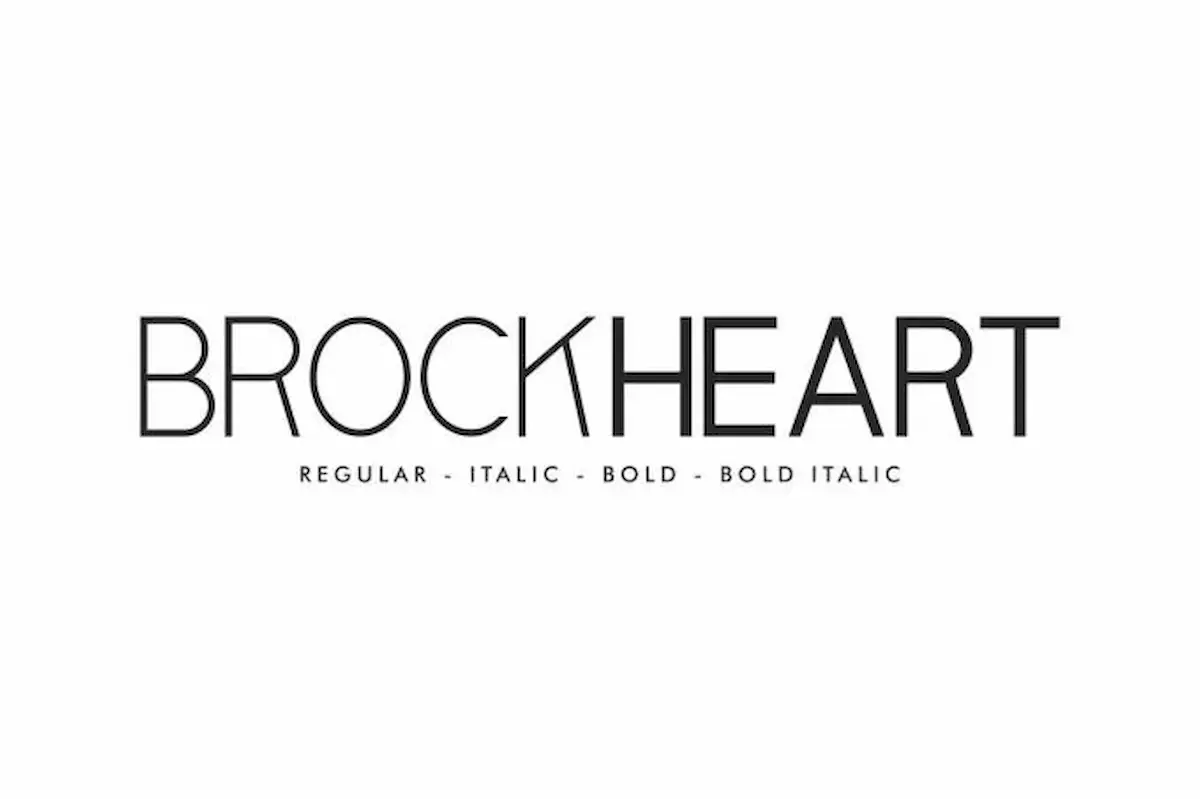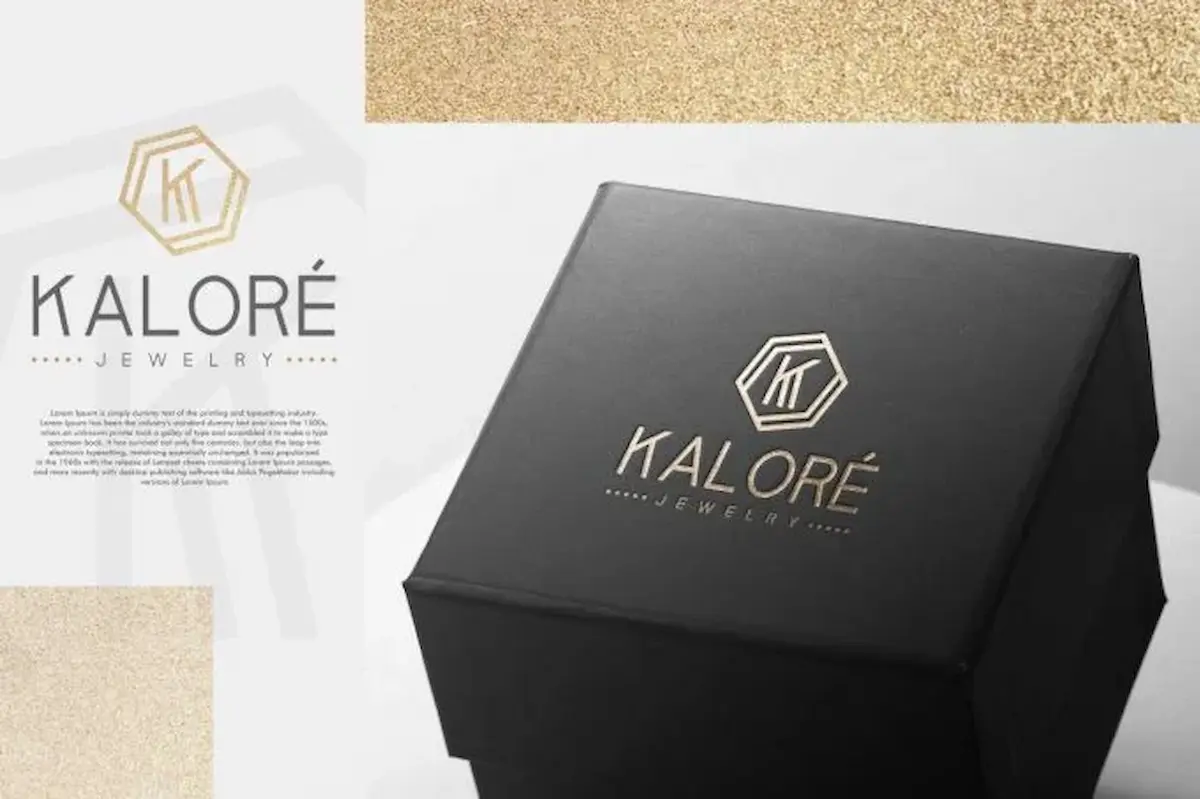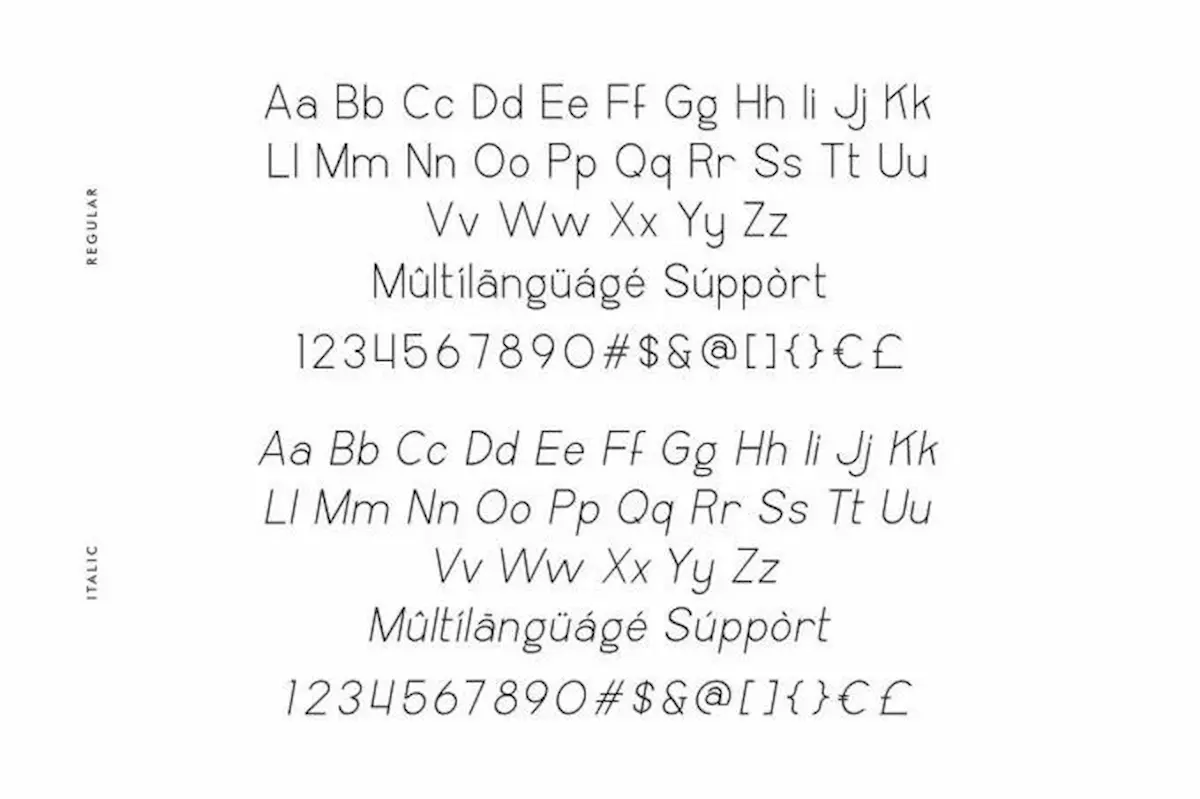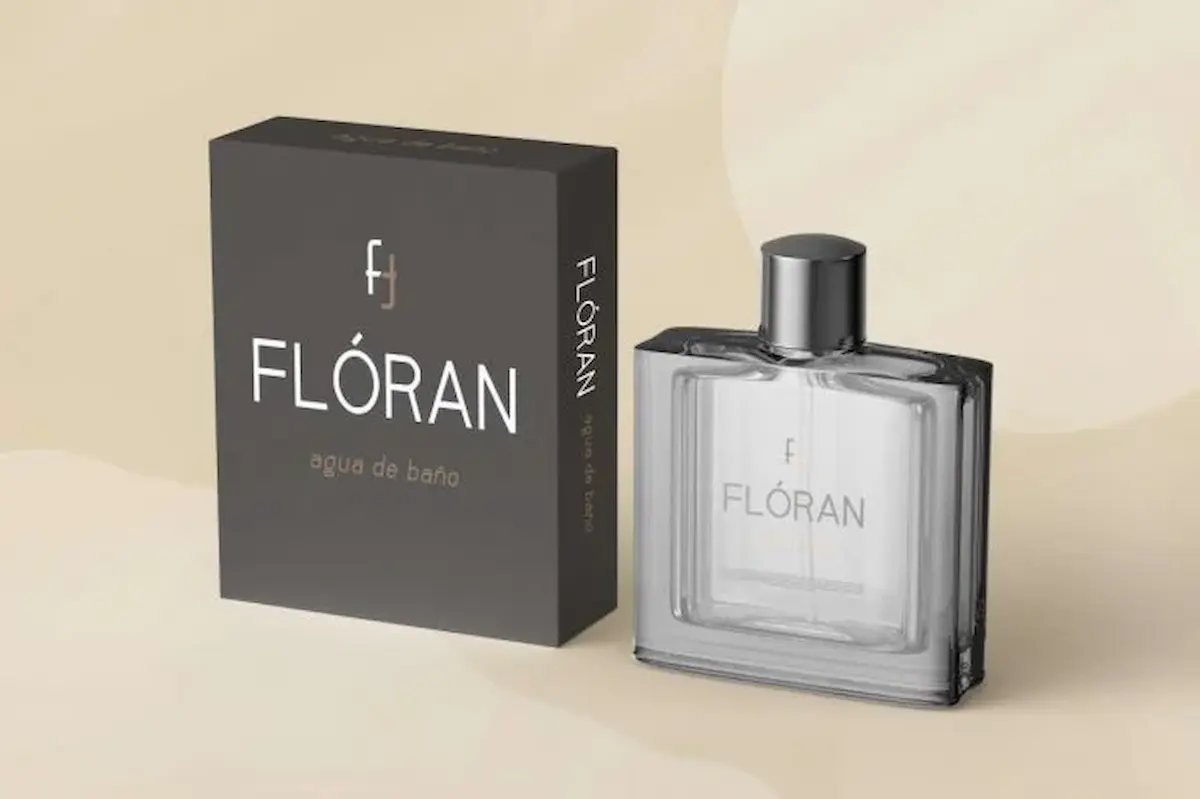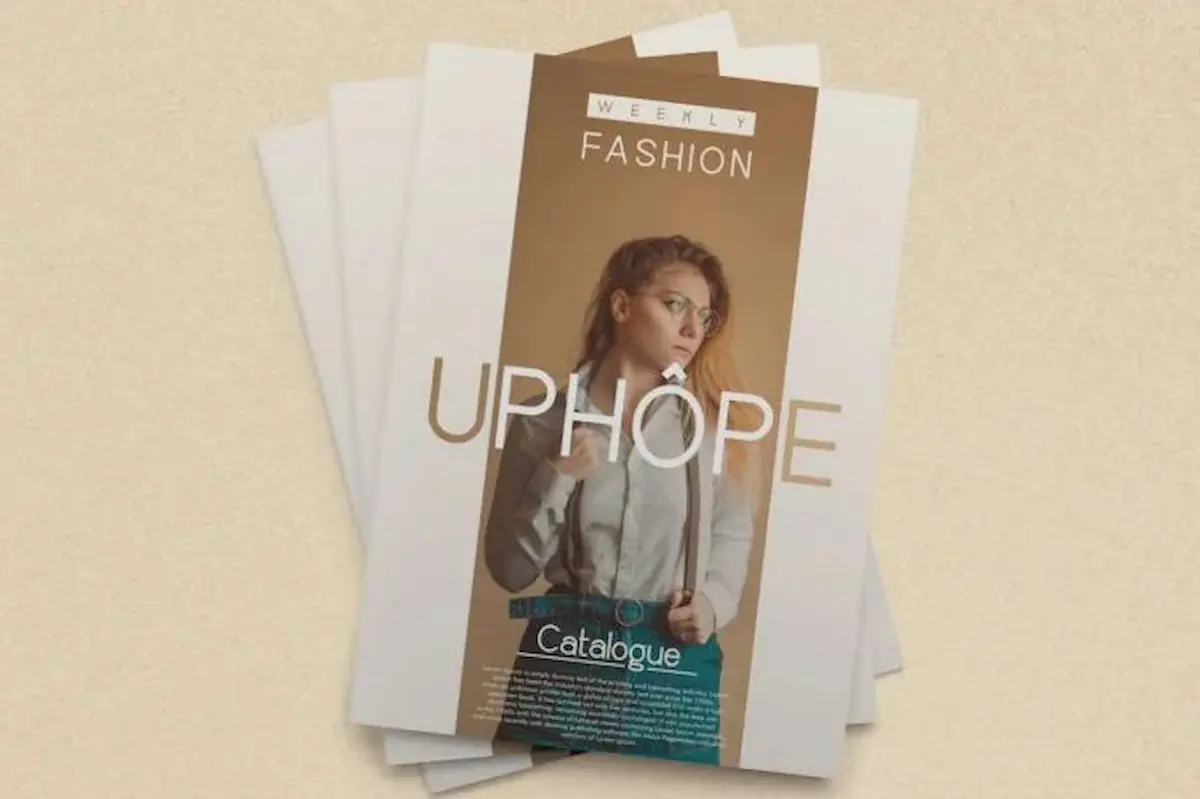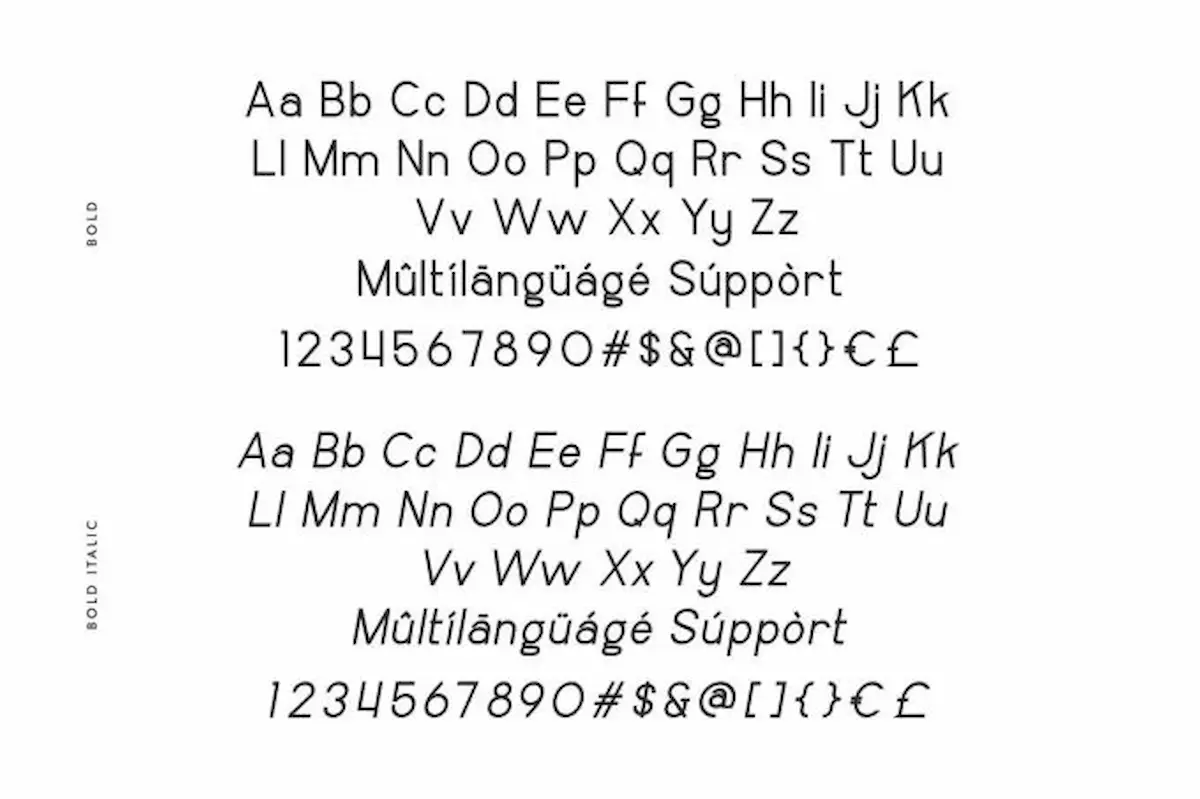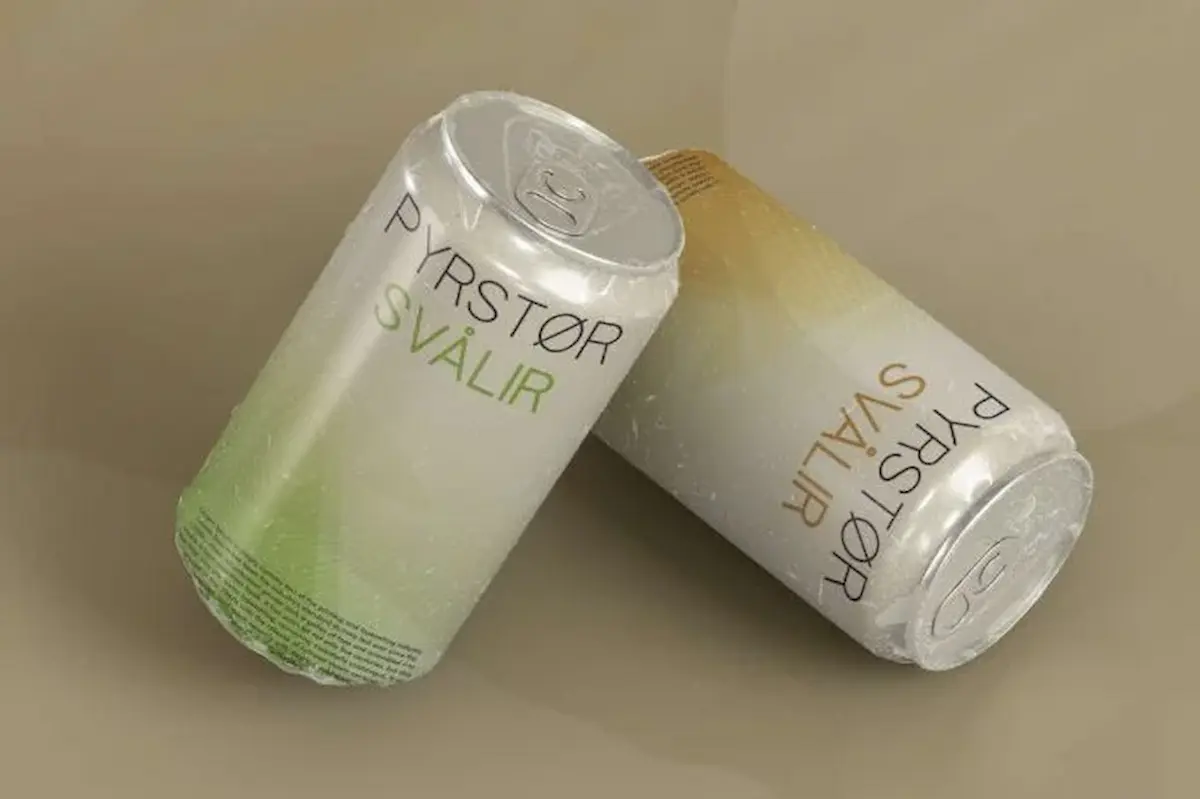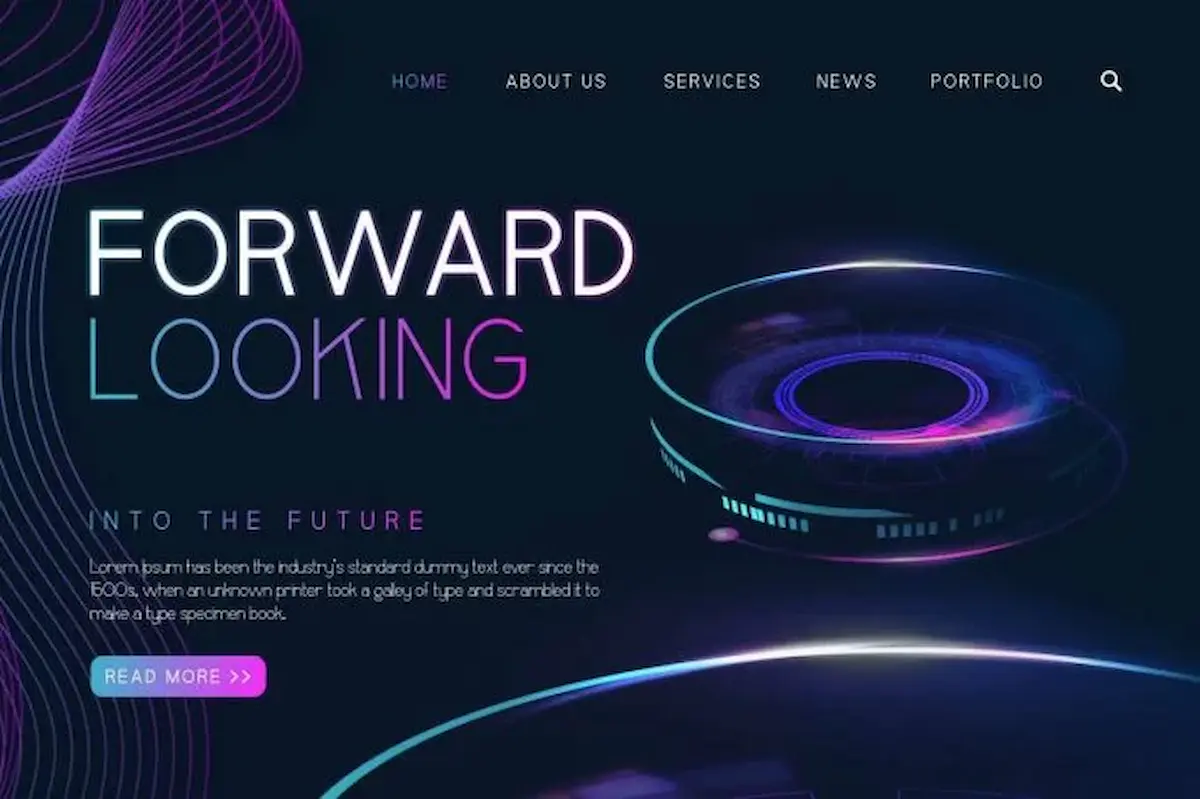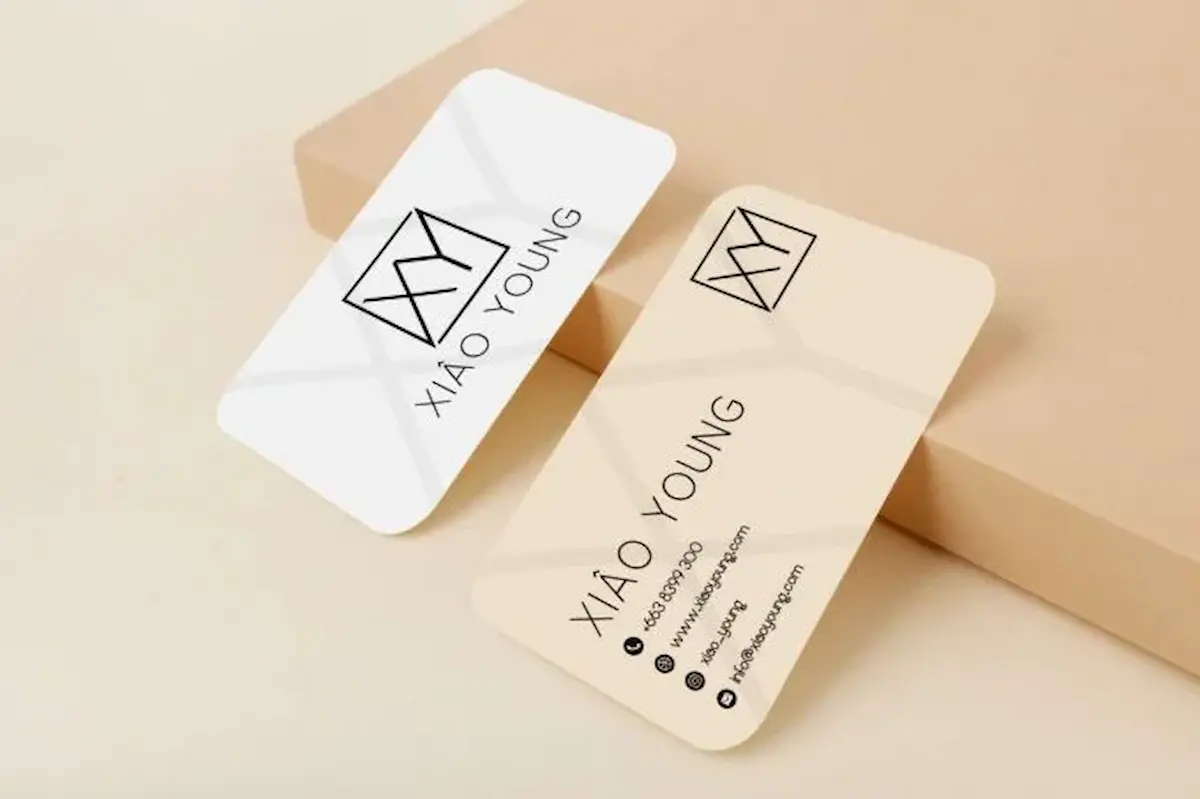
Brockheart Font is a minimalist sans serif font family by NihStudio. This font has four modern styles
Brockheart Font comes with OTF File, TTF File, Woff File and we’ll also include Read-me help file txt. This font has four different styles: Regular, Italic, Bold and Bold Italic. This font will be great for any projects (require extended license) including: logo branding, products packaging, screen printing, signage, title, webpage etc. It will be great for many business industries: fashion, food and drink, games, techno etc